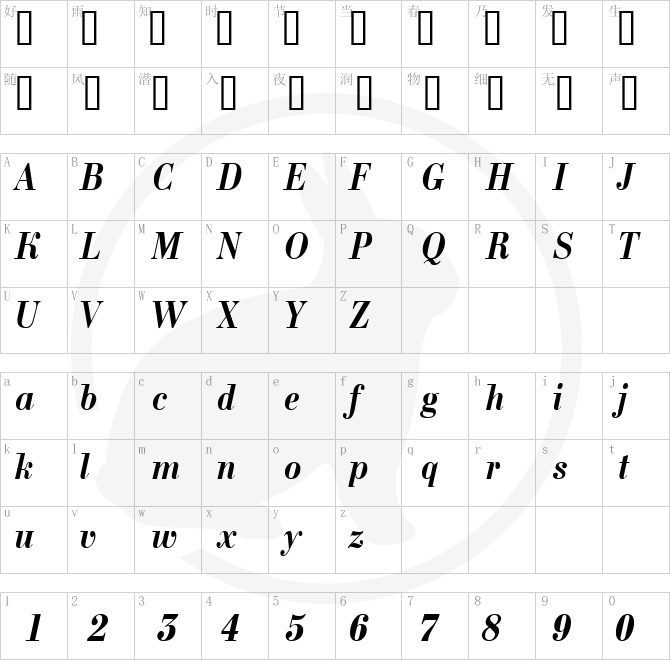
- Font Name:a_BodoniNovaNr
- Subfamily:BoldItalic
- Subfamily:Macromedia Fontographer 4.1 a_BodoniNovaNr BoldItalic
- Full Name:a_BodoniNovaNr BoldItalic
a_BodoniNovaNr-BoldItalic.ttf is a very beautiful artistic font, a_BodoniNovaNr-BoldItalic.ttf is widely used in the design and printing of various books and pictures,a_BodoniNovaNr-BoldItalic.ttf has a strong visual impact,a_BodoniNovaNr-BoldItalic.ttf is a commonly used font in newspapers, magazines and books, and is used in posters, e-commerce Poster design, store design, logo design, font design and other fields.a_BodoniNovaNr-BoldItalic.